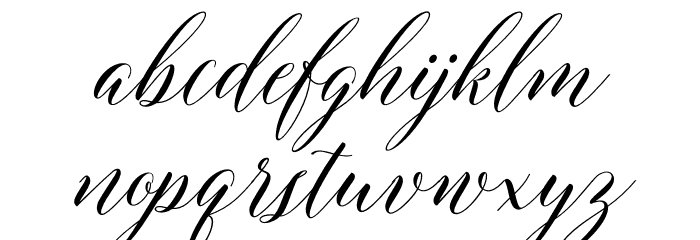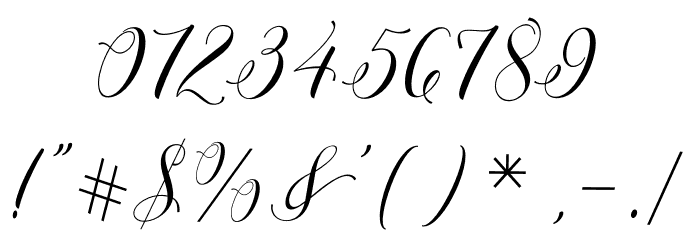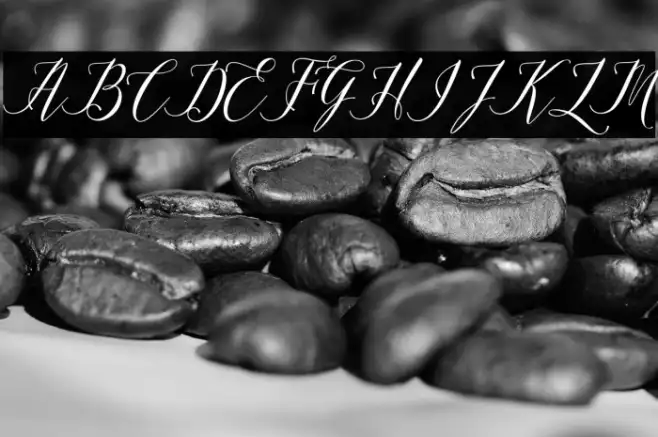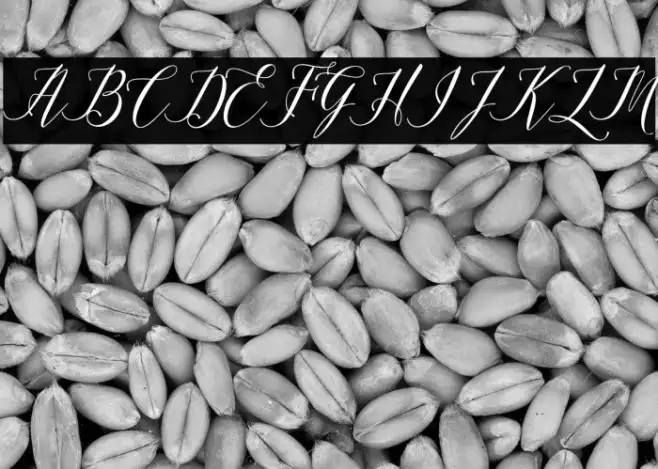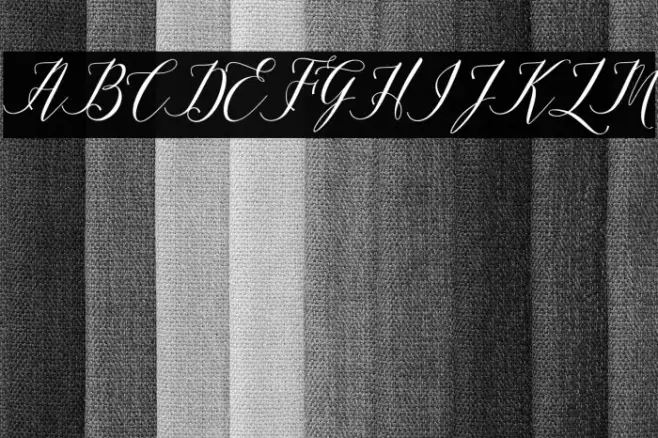
Edelwise Font
This elegant script font features flowing, interconnected letters with a classic calligraphic style. The uppercase letters are ornate, with sweeping curves and flourishes that add a touch of sophistication. The lowercase letters maintain a consistent flow, enhancing readability while preserving the decorative nature of the font. Numbers and special characters are designed with the same attention to detail, ensuring a cohesive look across all text elements. The overall appearance is both graceful and dynamic, making it suitable for formal invitations, branding, and other projects that require a touch of elegance.
An elegant script font with flowing, interconnected letters and classic calligraphic style.
- Font: Edelwise
- Proposed Projects: Ideal for wedding invitations, luxury branding, greeting cards, and elegant packaging design.
- Category: Script
- Overall Style: Classic
- Use Case: Logos, Invitations, Branding